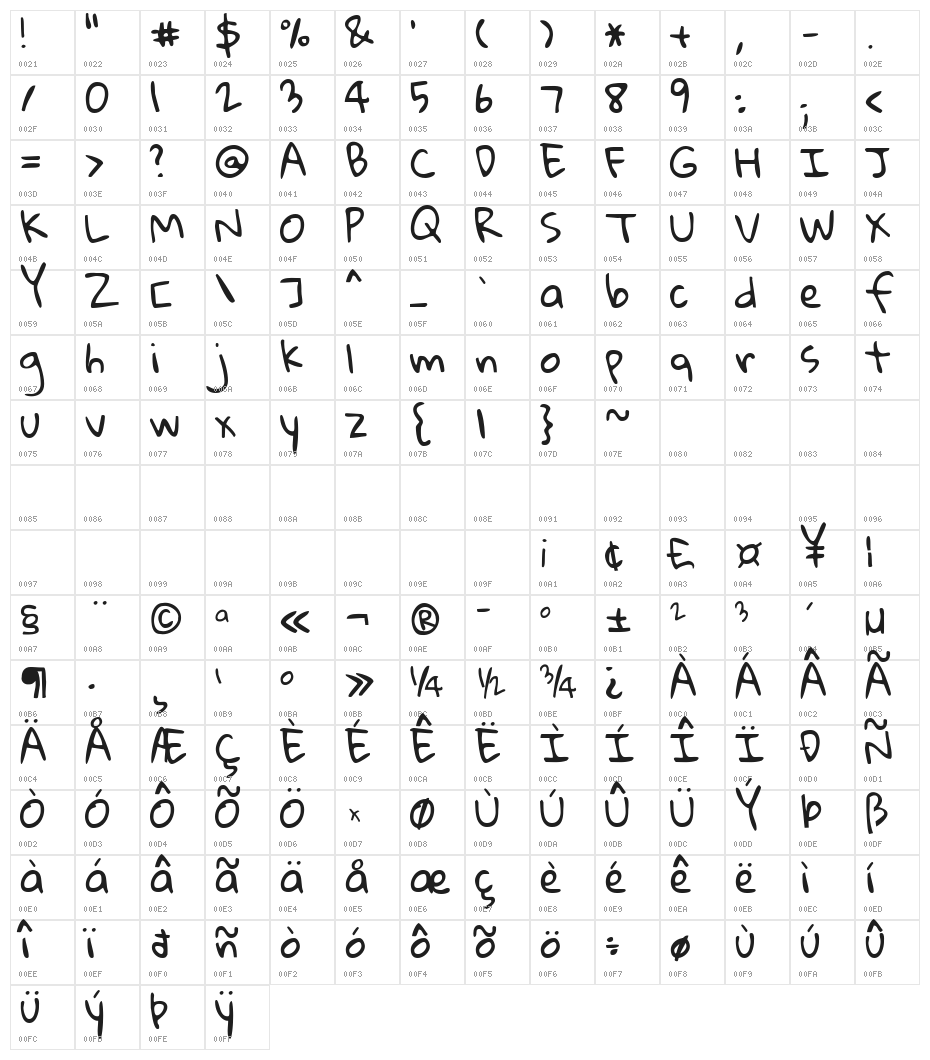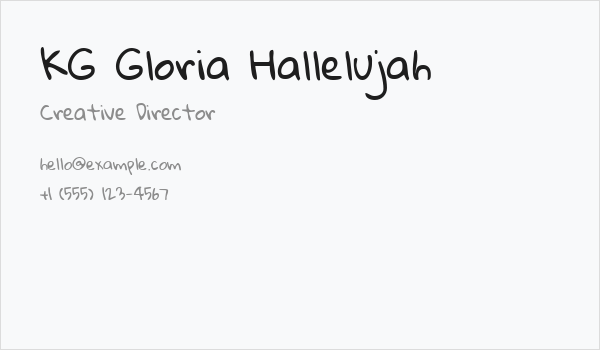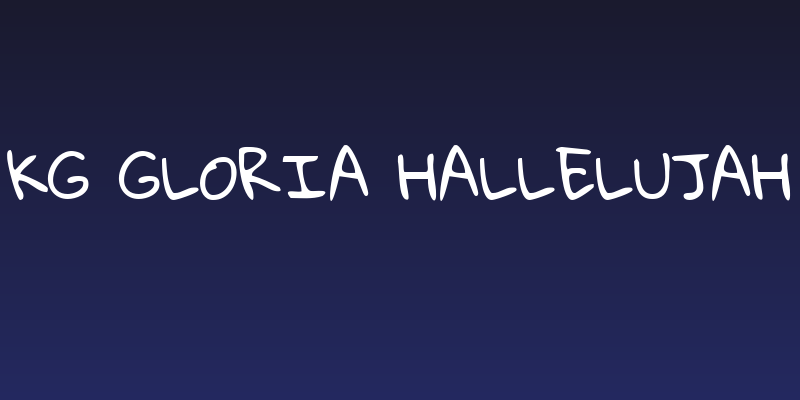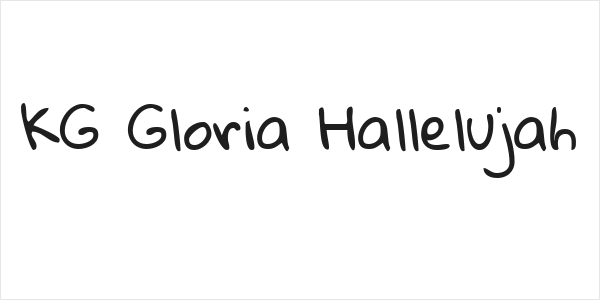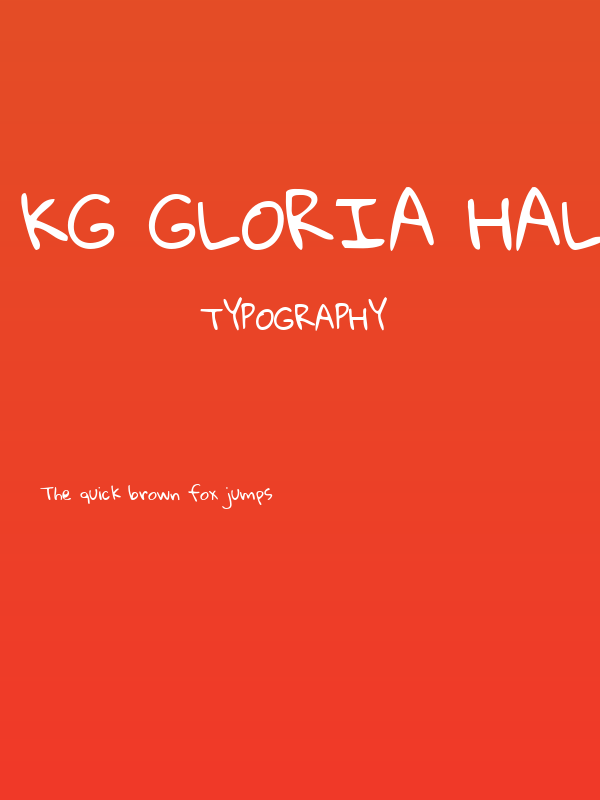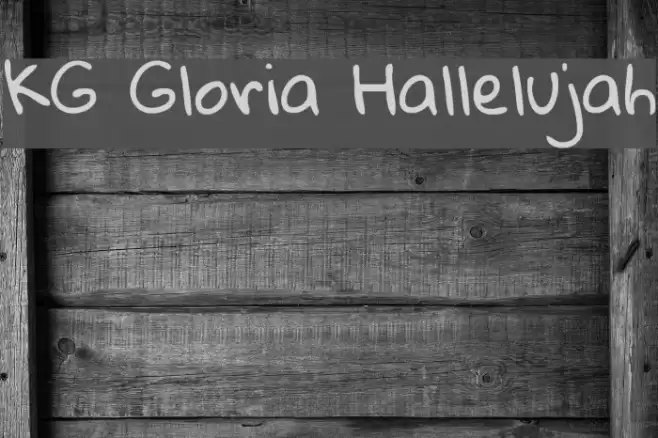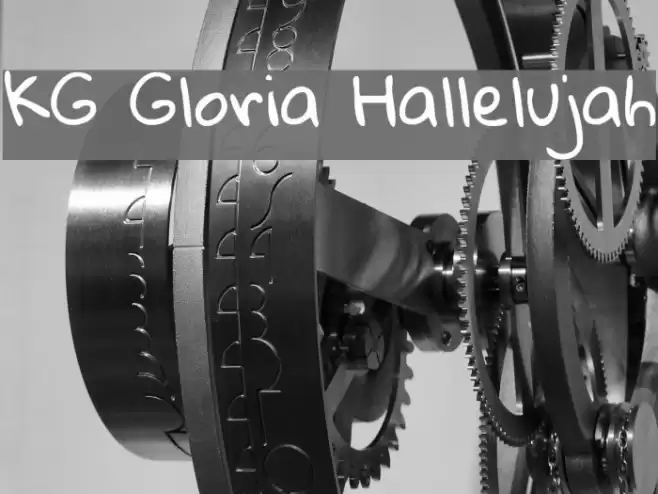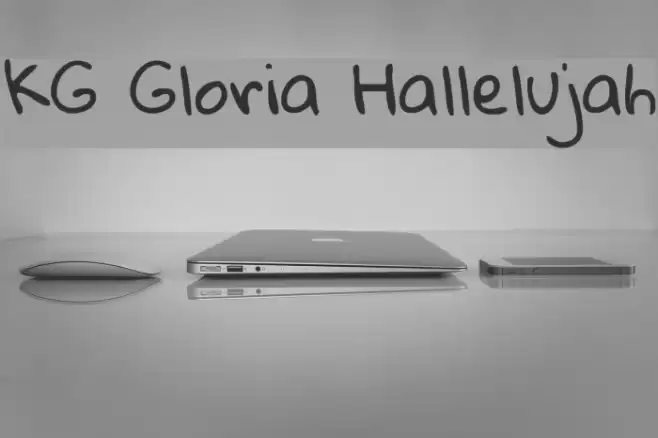
KG Gloria Hallelujah Font
KG Gloria Hallelujah Description
This font exudes a playful and casual handwritten style, characterized by its loose and informal strokes. The letters are slightly uneven, mimicking the natural flow of handwriting, which adds a personal and friendly touch. The uppercase and lowercase letters maintain a consistent style, with rounded edges and a slight tilt, enhancing the relaxed feel. Numbers and special characters follow the same handwritten aesthetic, ensuring uniformity across all characters. This font is ideal for projects that require a personal, approachable, and informal look.
| Use Case | Headlines, Informal text, Personal notes |
| Proposed Projects | Ideal for greeting cards, personal notes, children's books, and informal branding. |